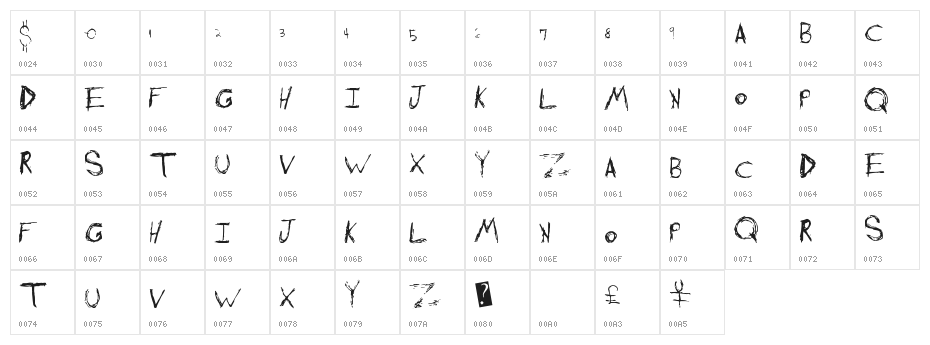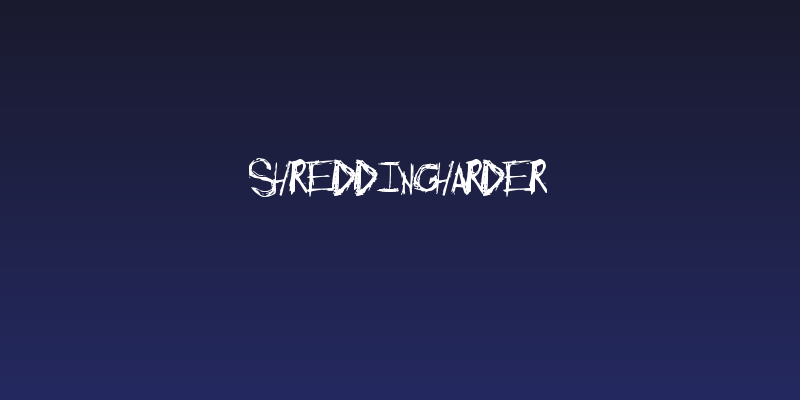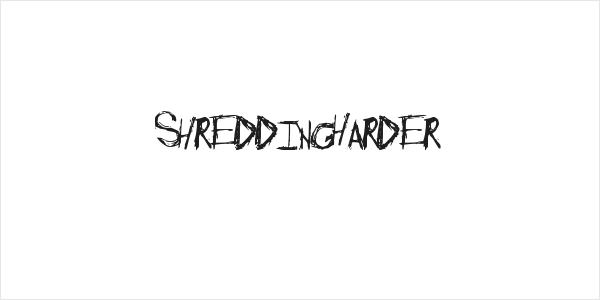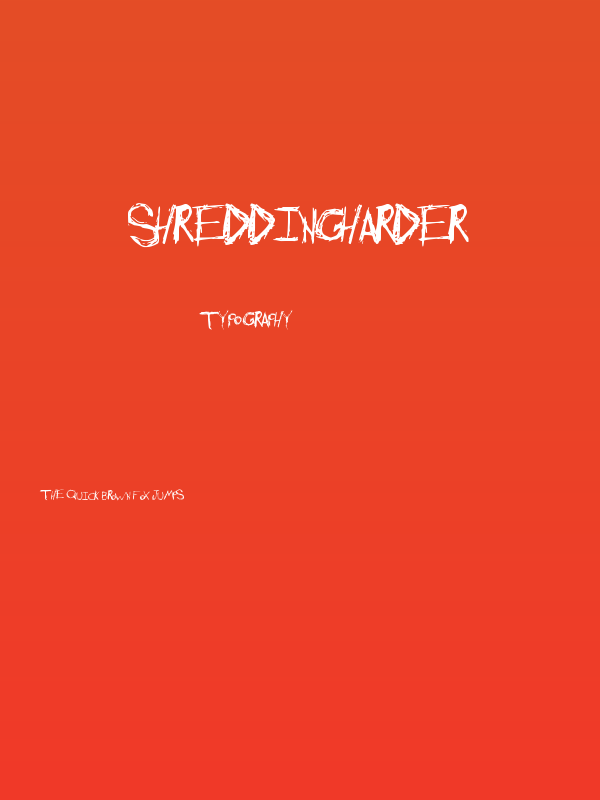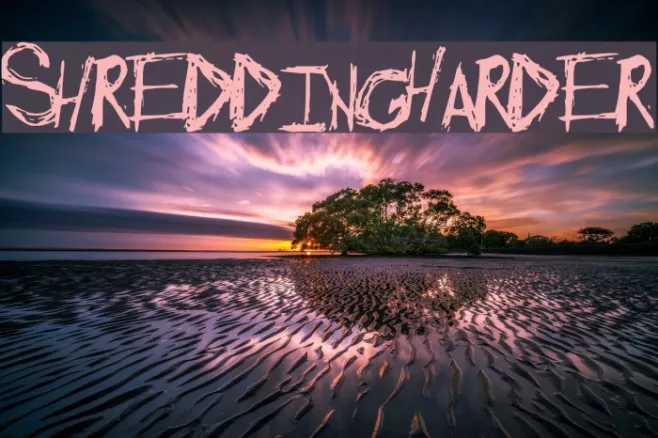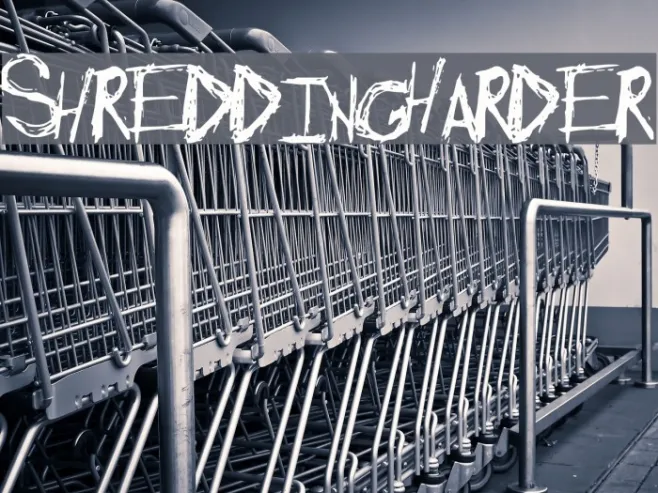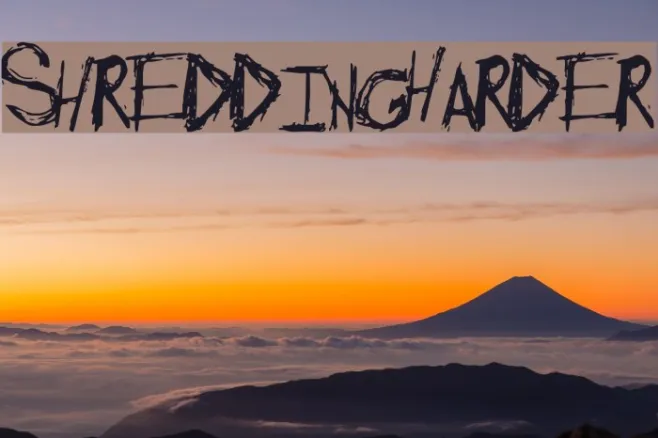
ShreddingHarder Font
ShreddingHarder Description
This font exudes a raw, edgy aesthetic with its jagged, distressed letterforms. Each character appears as if it has been scratched or shredded, giving it a rebellious and chaotic vibe. The uppercase and lowercase letters maintain a consistent style, with uneven strokes and irregular edges that create a sense of movement and energy. The numbers and special characters follow the same design principles, ensuring a cohesive look across all glyphs. This font is perfect for projects that require a bold, unconventional appearance, making it ideal for music album covers, posters, or any design that aims to capture attention with its gritty and dynamic style.
| Overall Style | Edgy, Rebellious, Dynamic |
| Proposed Projects | Ideal for music album covers, edgy posters, and attention-grabbing designs. |